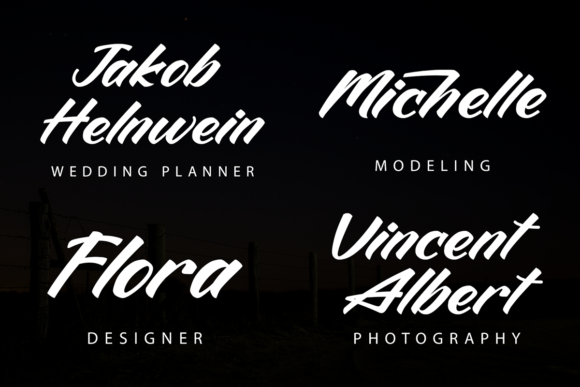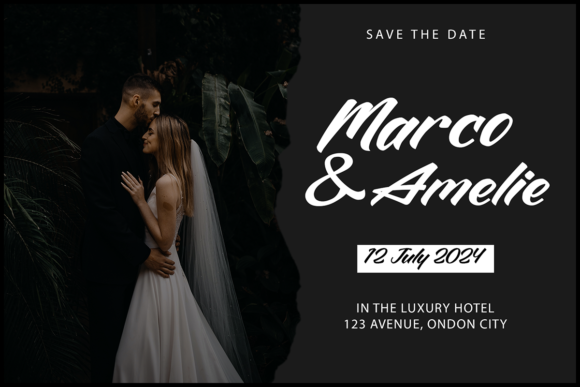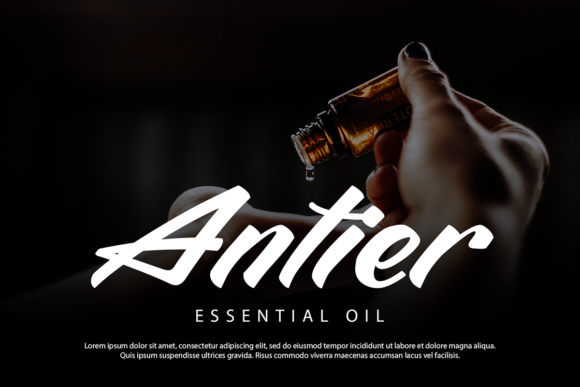
About Nocturnal Font
Nocturnal is a bold and modern handwritten font. This typeset is perfect for brand logos, invitations, greeting card, or even any kind of project. With multilingual features and style variations, this typeface would further enhance the aesthetical aspect of your work.